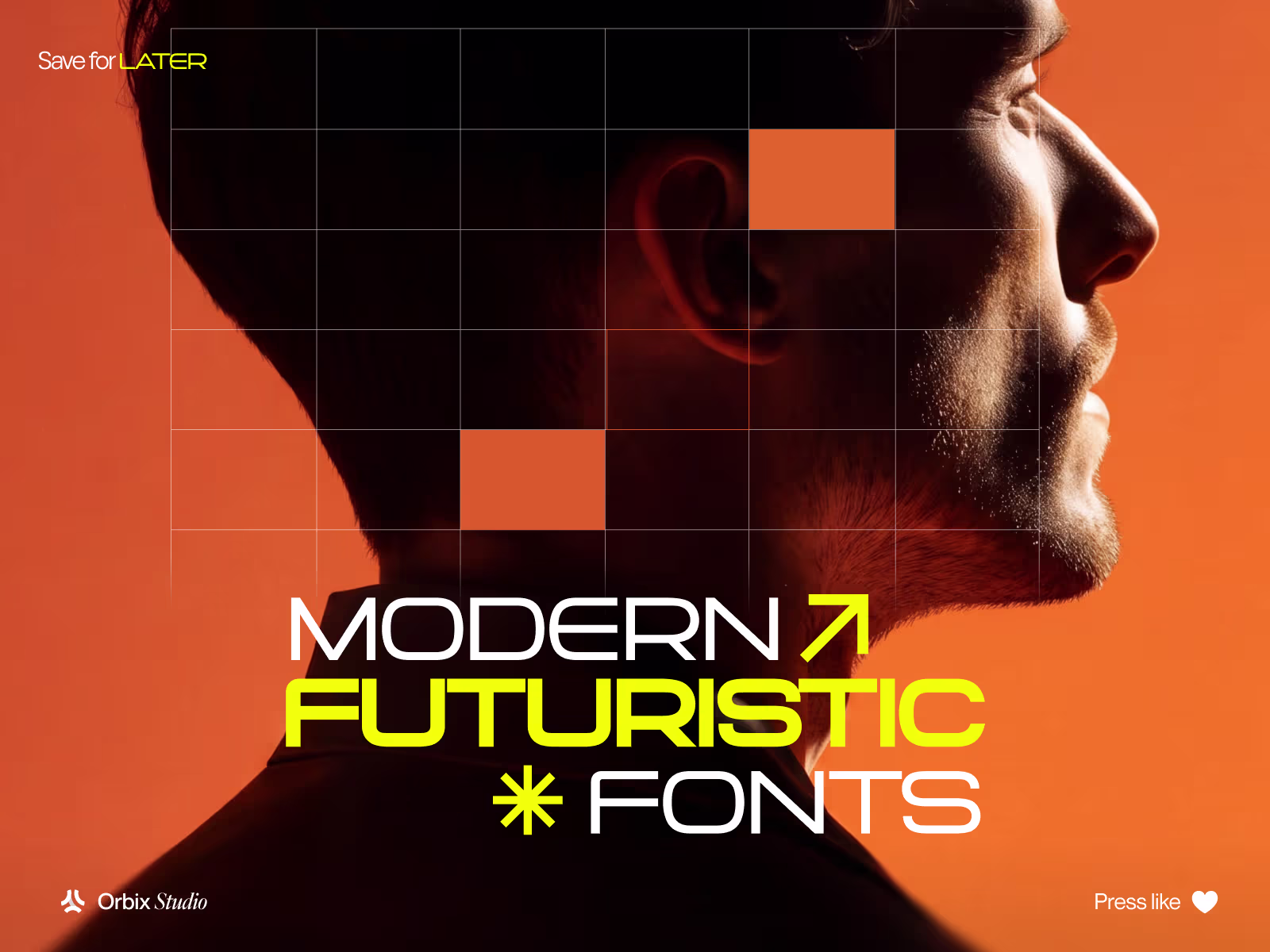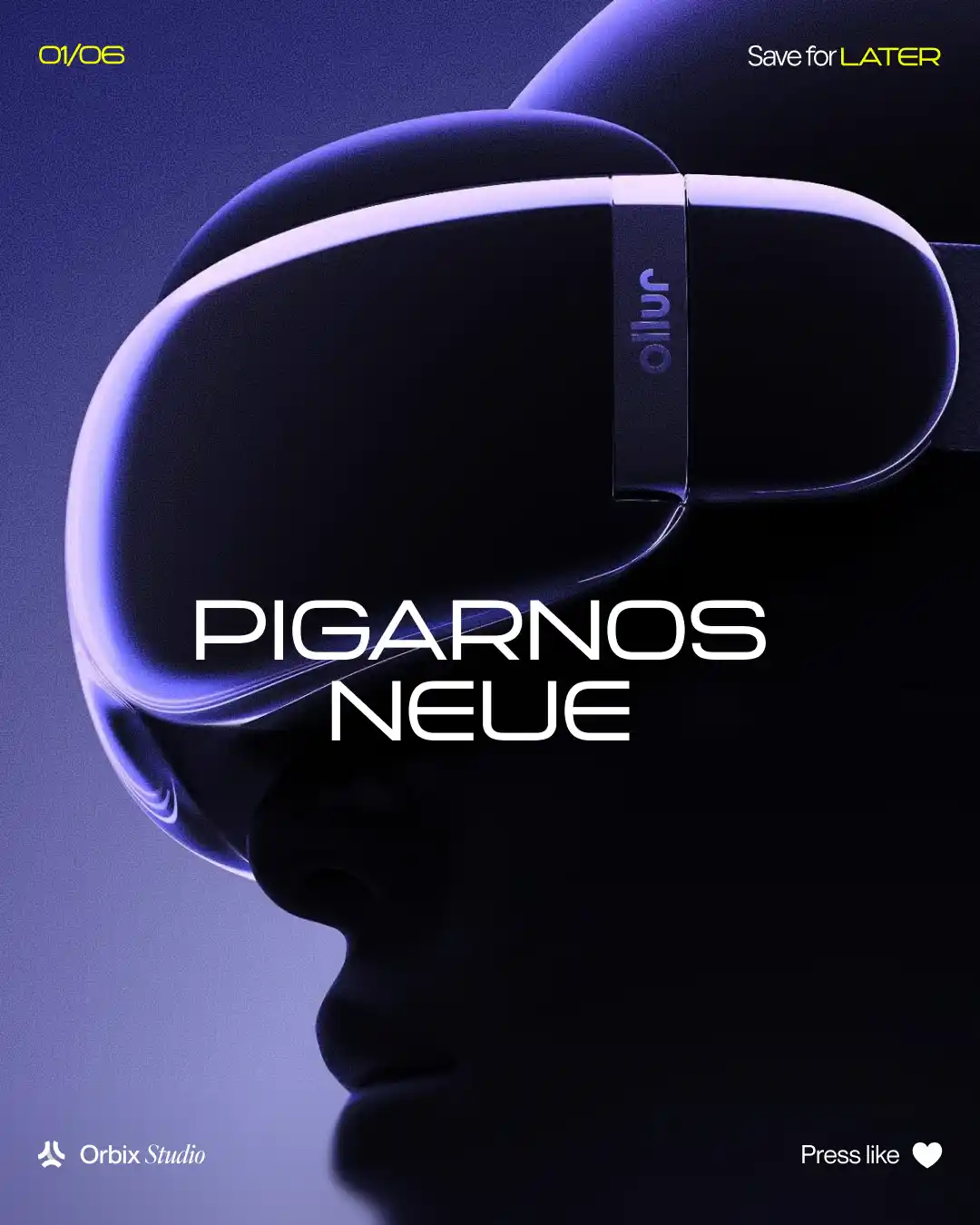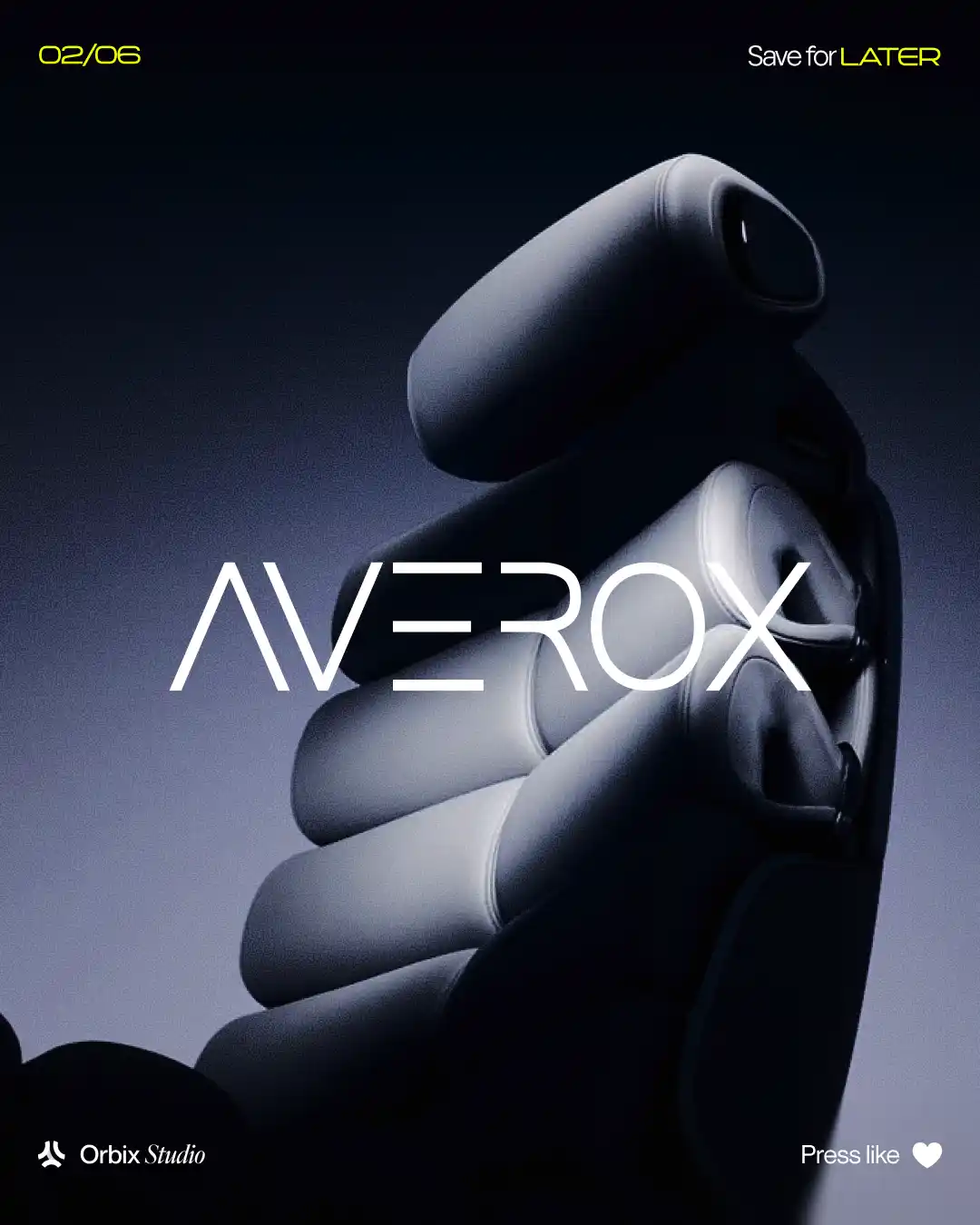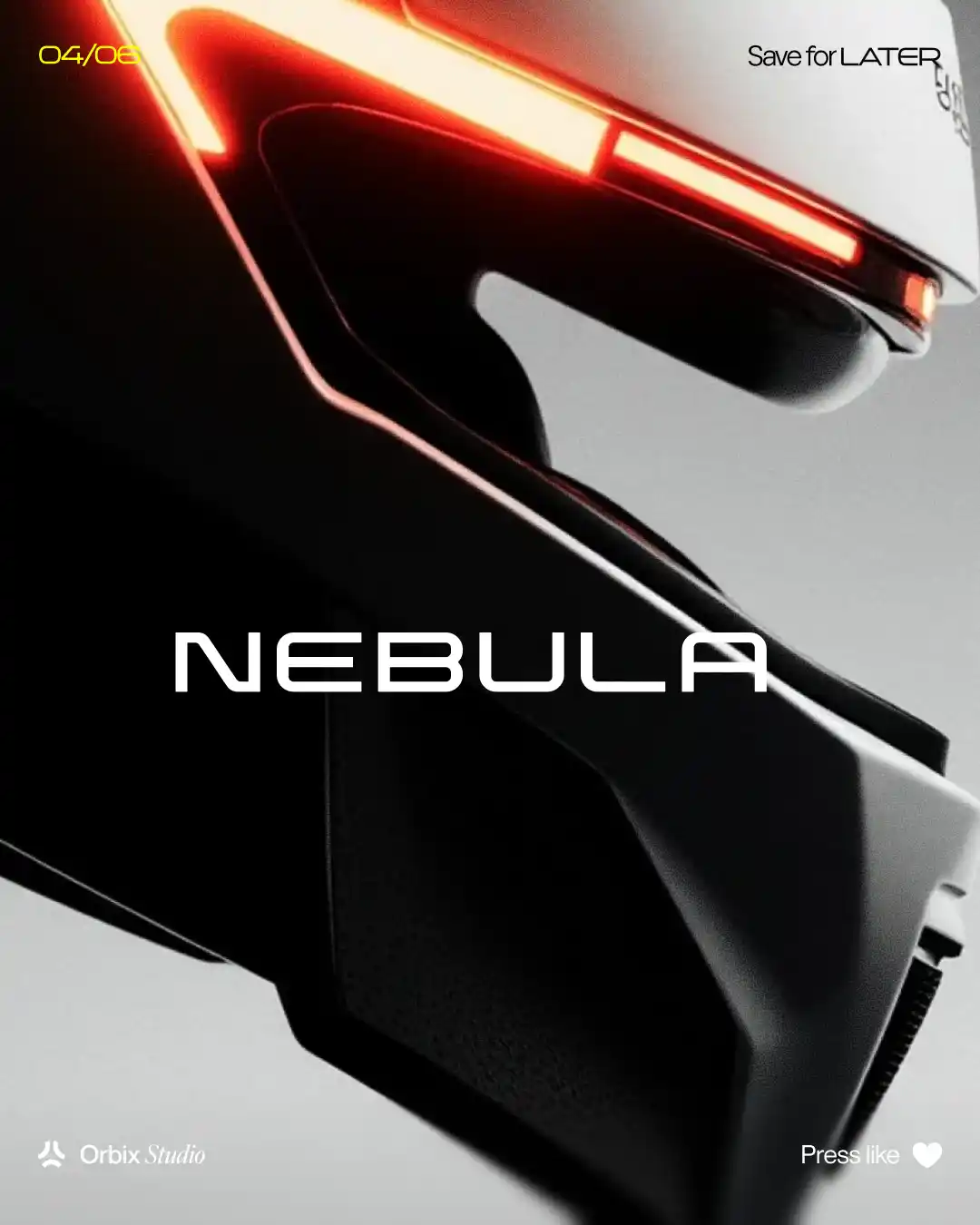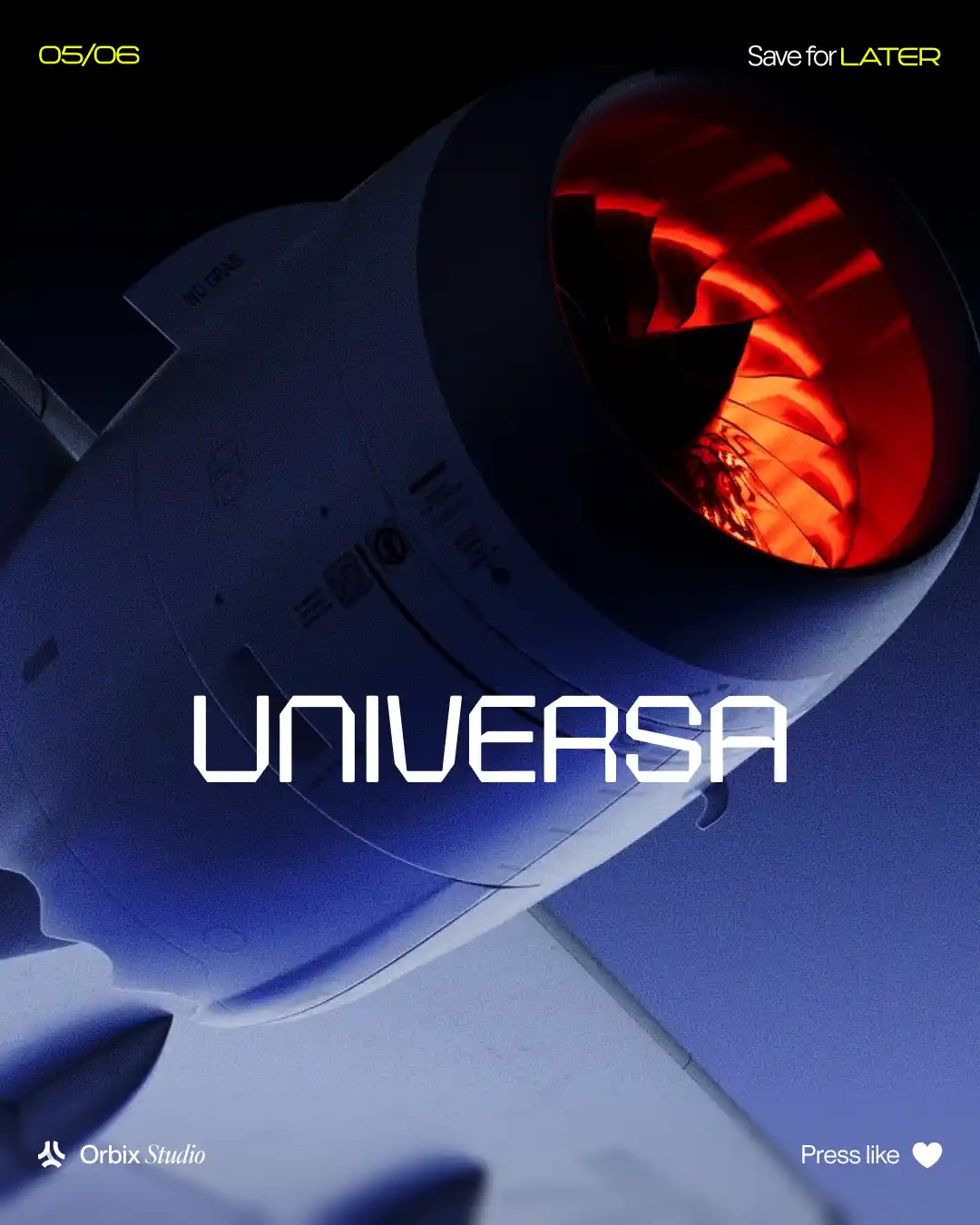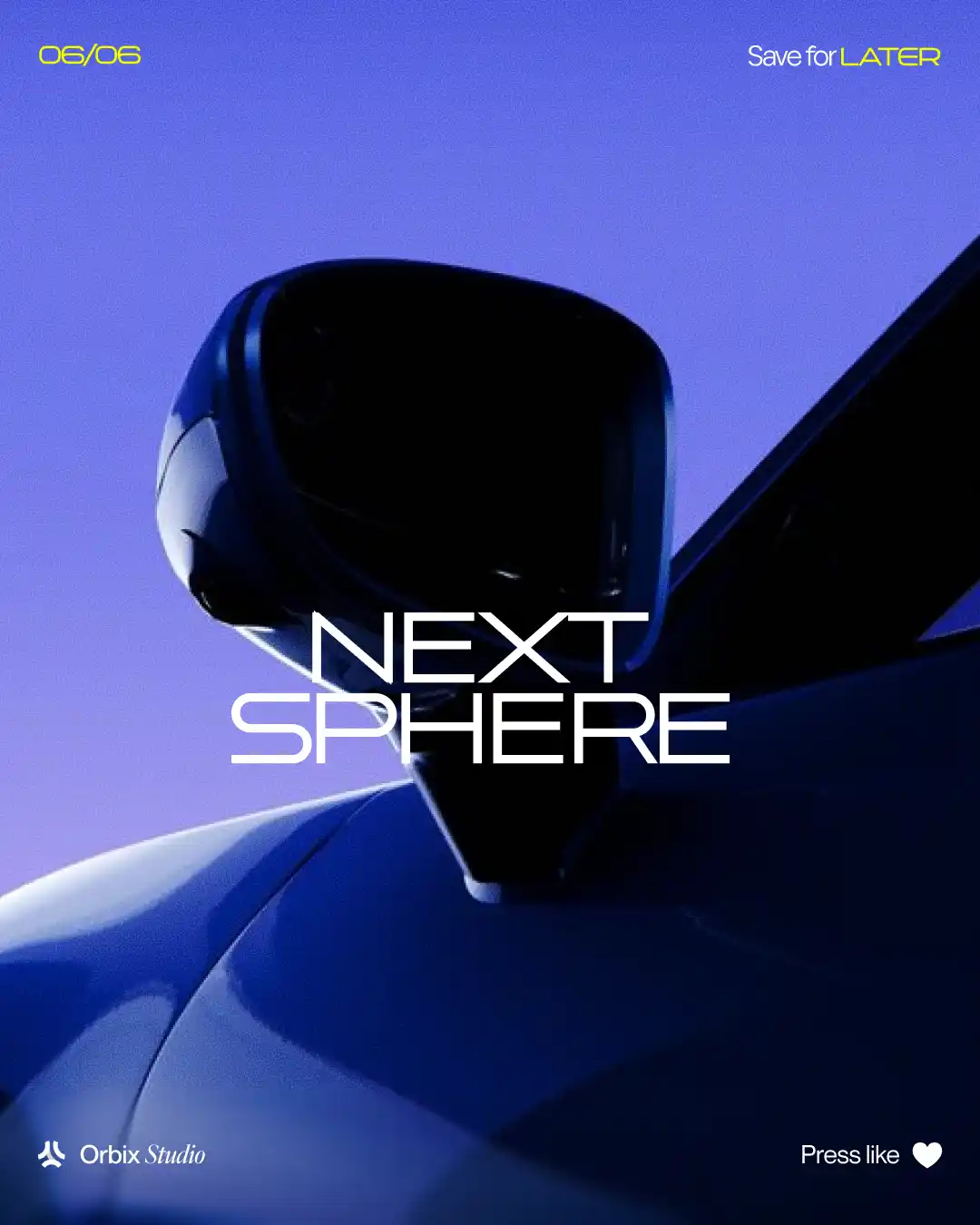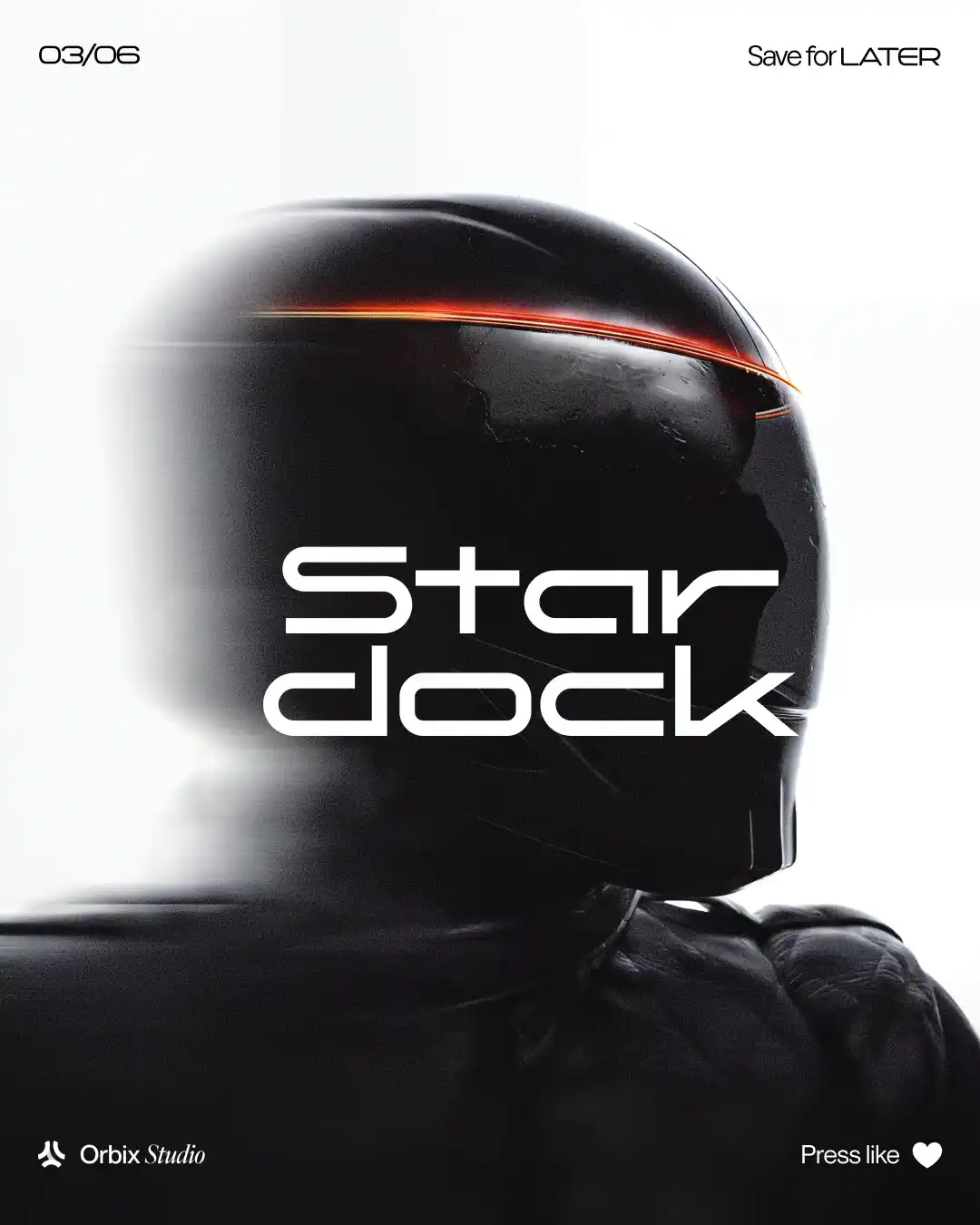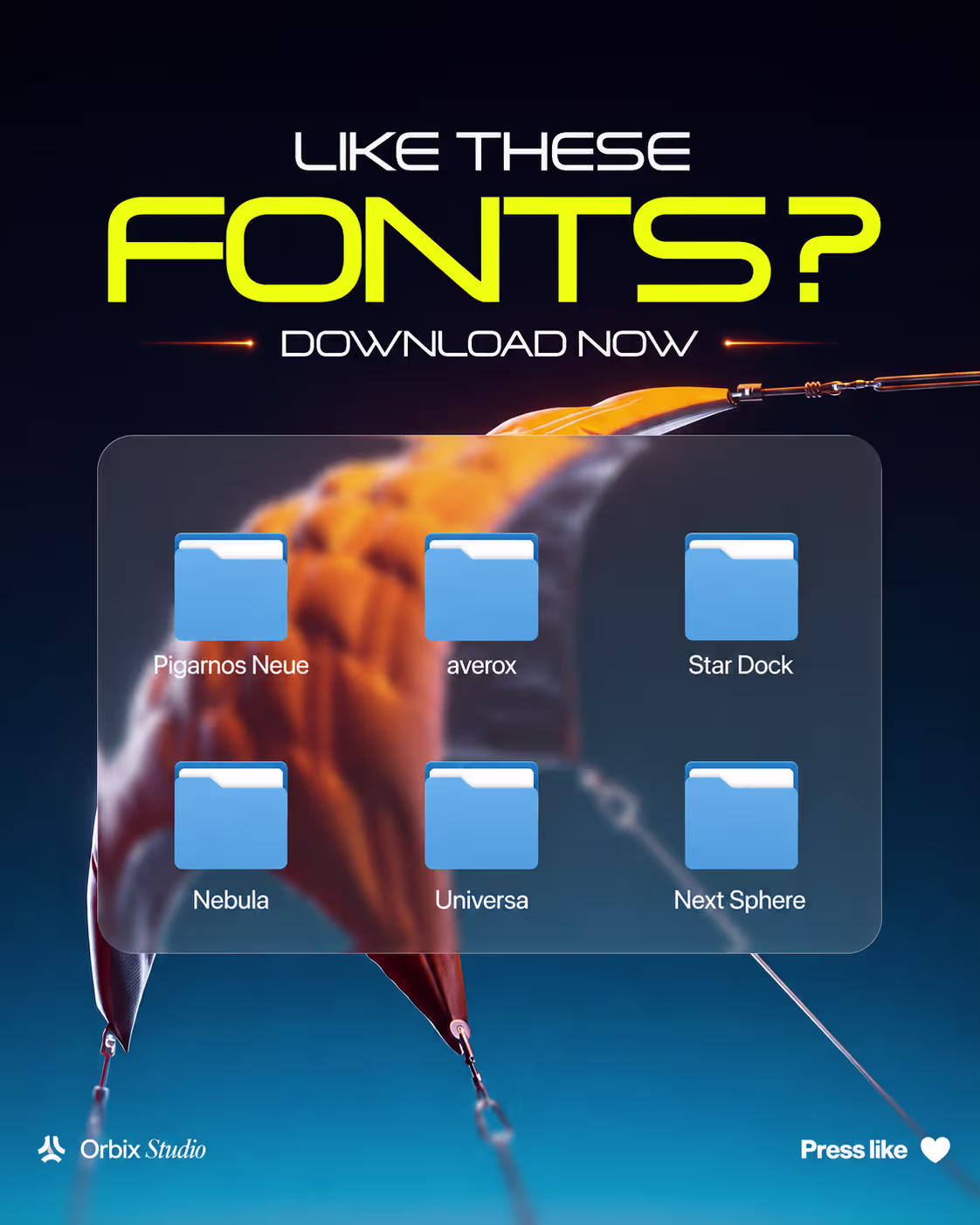
Modern & Futuristic Fonts
Modern & Futuristic Fonts is a free font resource from Orbix Studio, built for designers and brands who want clean, geometric letterforms with a tech-forward feel. It's a ready-to-download typeface suited to startup, SaaS, and product branding that wants to look modern without leaning on an overused system font.
The font's futuristic character makes it a strong fit for logos, headlines, UI text, and marketing material where a brand wants to signal innovation and precision. Because it's offered as a free download, designers can test it directly in real layouts - websites, decks, app interfaces -before committing to a full brand typeface.
This resource is best suited to startups, SaaS companies, product designers, and brand teams who want a distinctive, modern display font without a licensing budget, and who need something that pairs well with a clean, minimal brand aesthetic.
Key Features:
- Modern, geometric, futuristic letterforms
- Suited to tech and SaaS branding
- Works well for headlines, logos, and UI text
Perfect For:
- Startups and SaaS brands
- Product and UI designers
- Tech-focused marketing material
- Designers building a modern brand identity